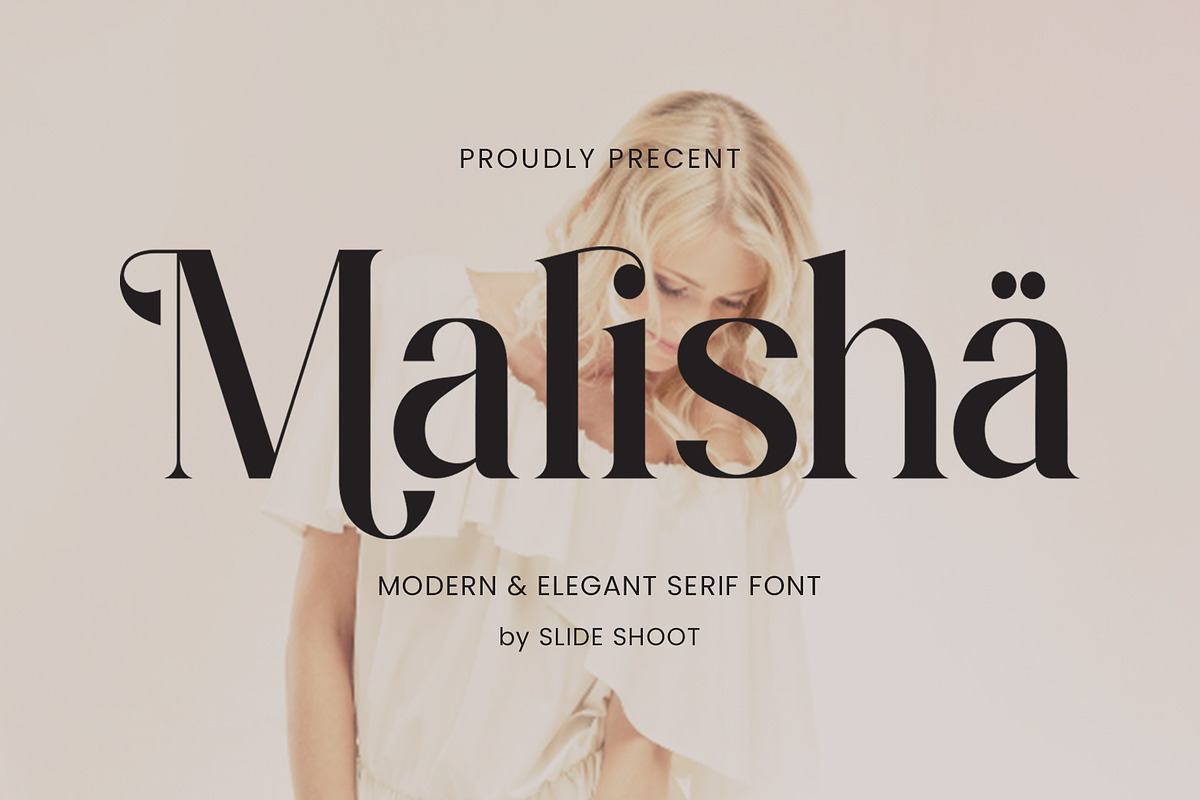
Malisha Serif Font Free Download is a modern and elegant typeface that blends classic serif features with a contemporary twist. With its stylish curves, high contrast strokes, and graceful presence, Malisha is perfect for branding, editorial layouts, wedding invitations, luxury packaging, and fashion-related designs.
This font was crafted to deliver sophistication and readability, making it a versatile choice for both display and text. Whether you’re creating a logo for a boutique, designing a magazine cover, or working on high-end marketing materials, Malisha adds a refined and upscale feel to your typography.